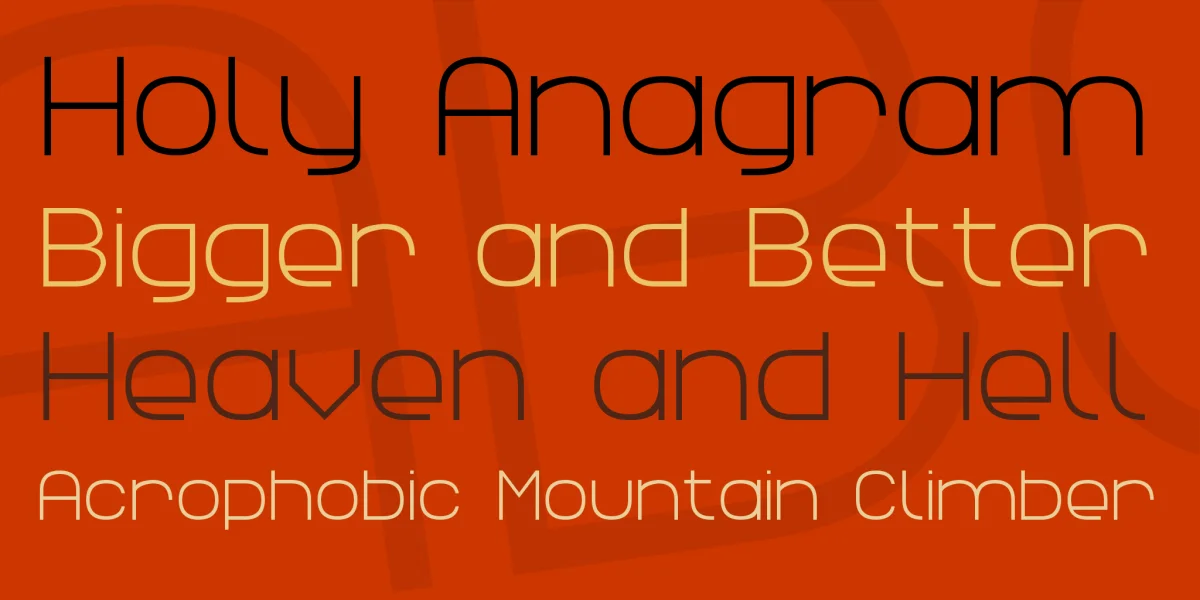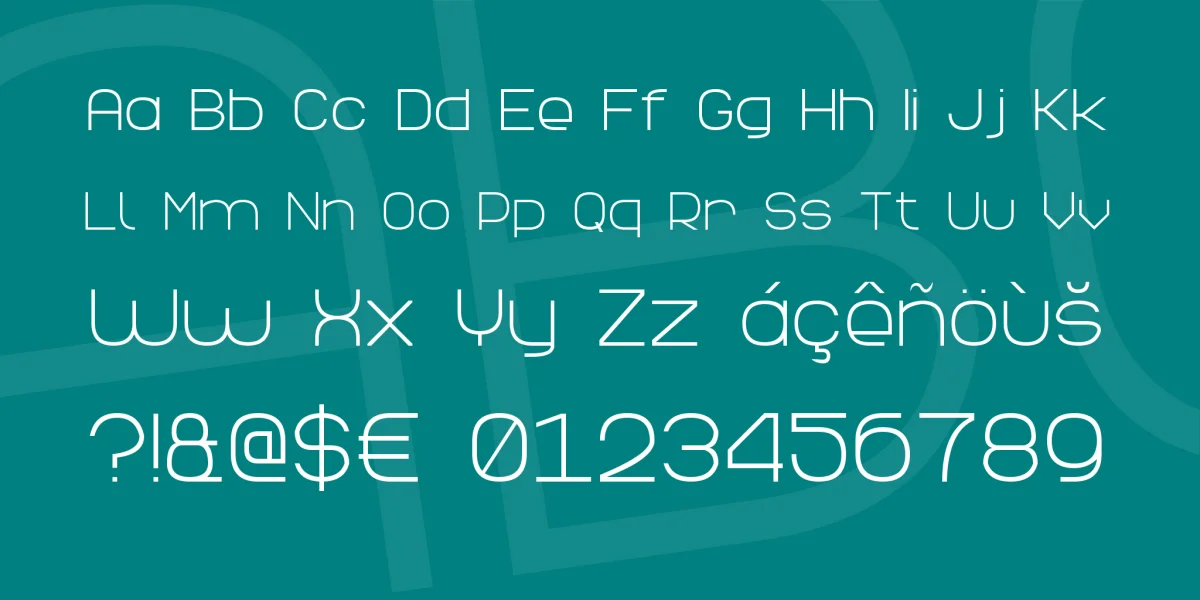
Original thin sans serif font. Latin and Cyrillic code pages are supported, freeware for home using only. Use this link to buy the license. Please enter font name in web form.